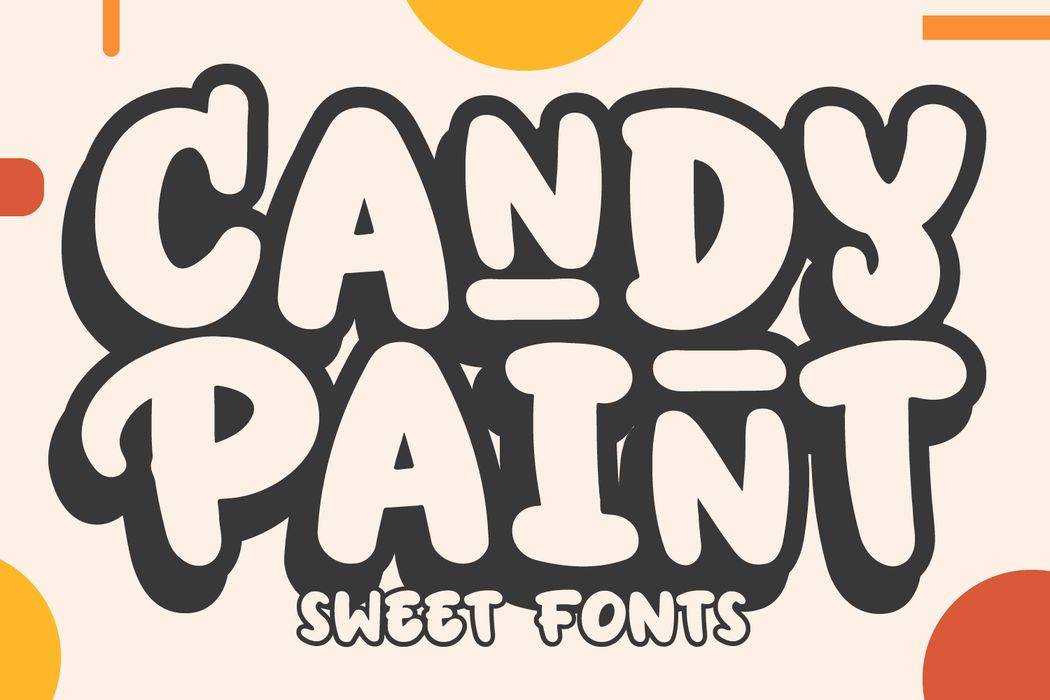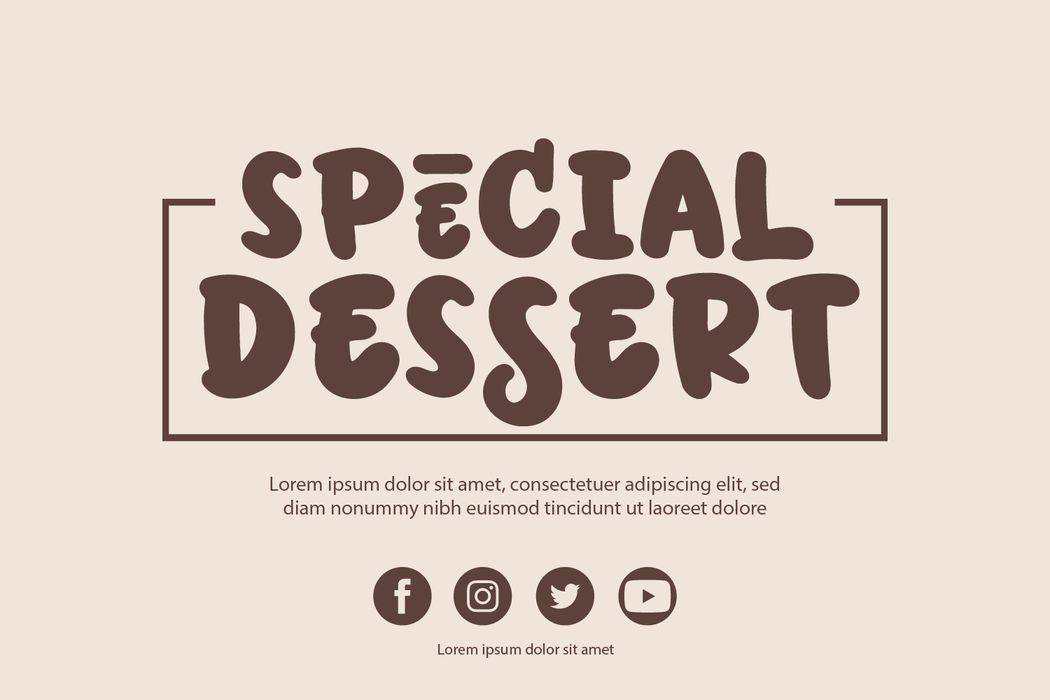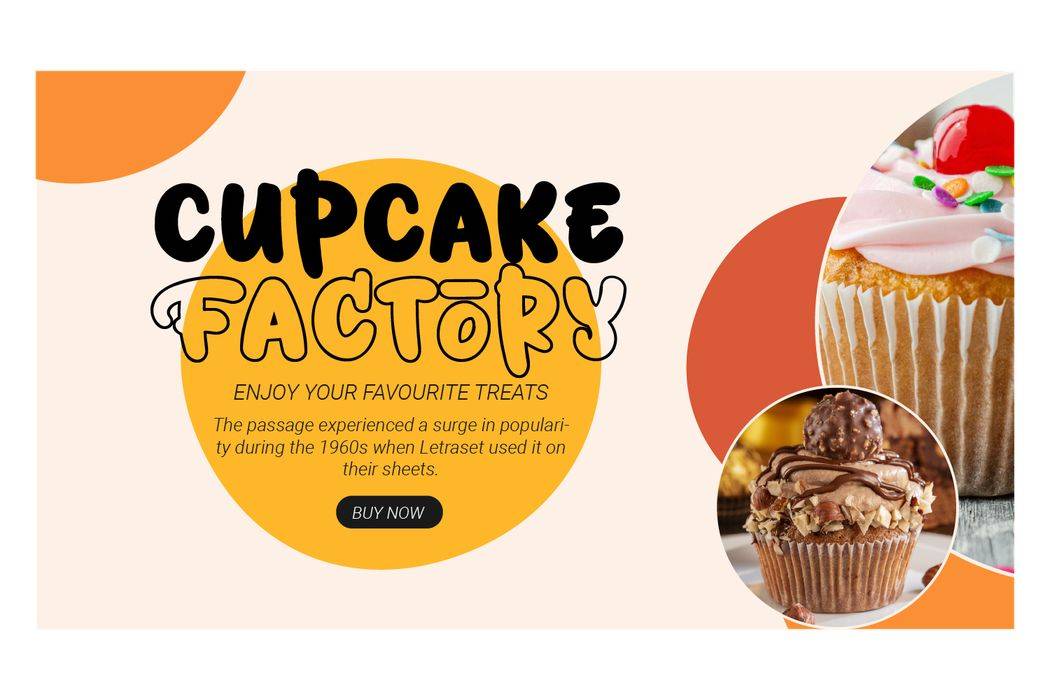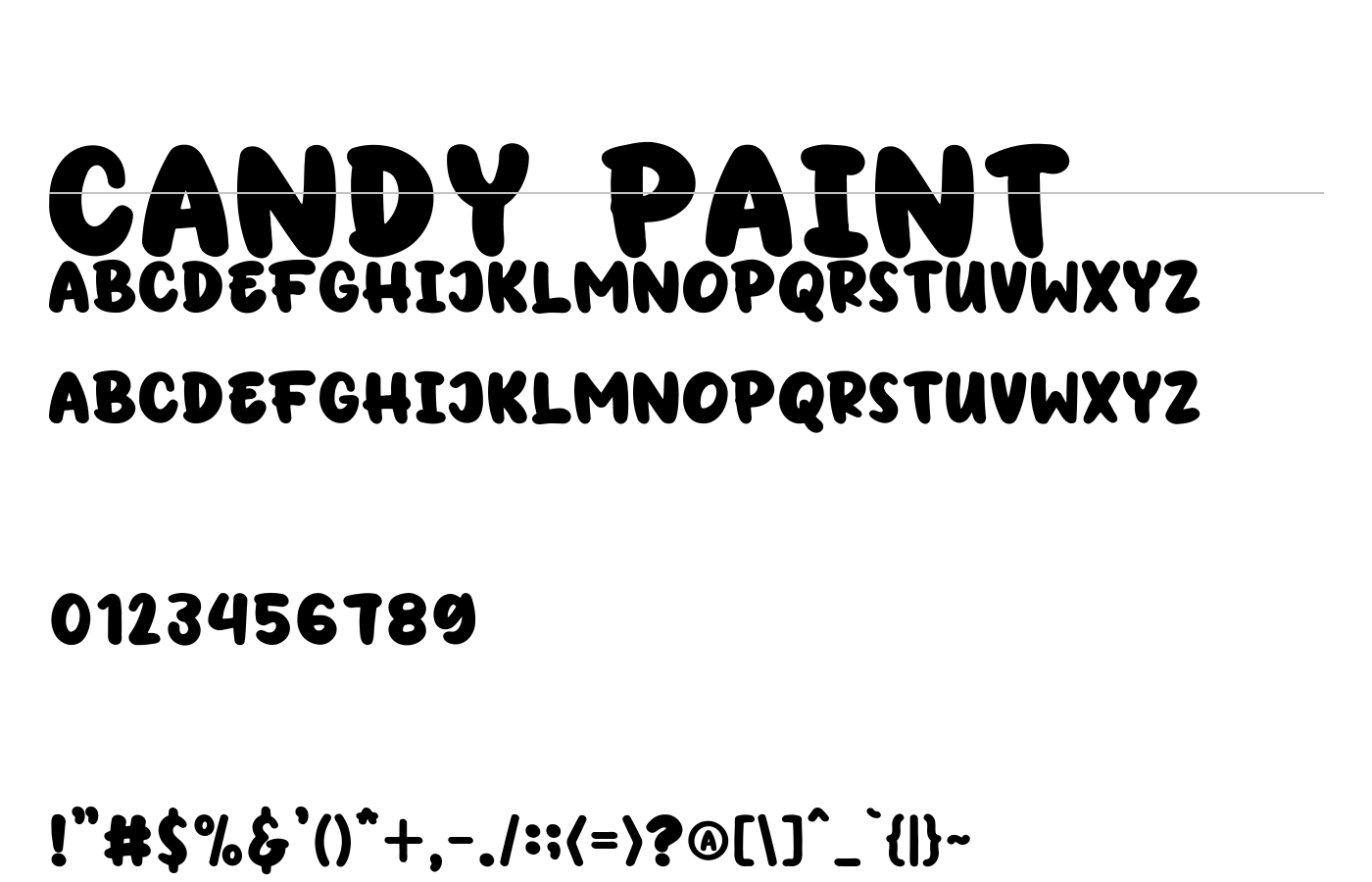
Candy Paint is a playful, bold sans serif font with a chunky, rounded style that exudes a fun and friendly vibe. Its thick strokes and slightly irregular shapes give it a hand-drawn, casual feel, making it perfect for creative, youthful branding, children’s content, and lively headlines that need strong visual impact. This font works well where a cheerful, approachable tone is desired, including posters, packaging, and informal digital media.
Candy Paint Font
| Designer | Stefie Justprince |